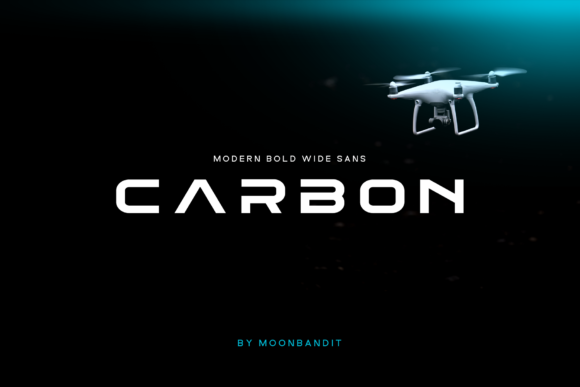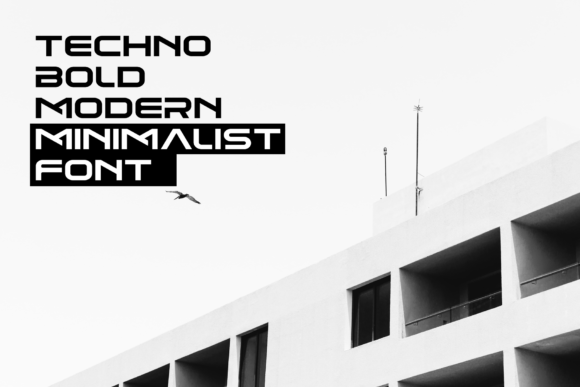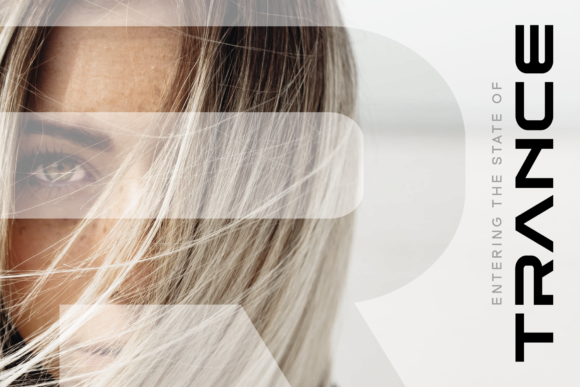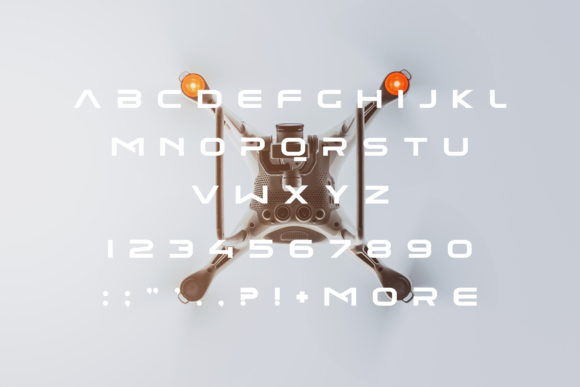
HomeSans Serif FontsCarbon Font Sans Serif Fonts Carbon Font FacebookTwitterPinterestWhatsApp Carbon Font 1 of 4 About Carbon Font Carbon is inspired by modern technology and delivers a bold and sleek aesthetic. DOWNLOAD NOW People also explored Papaya Font Blue Fire Monogram Font Lotterras Font Puzzle in Love Font Go to School Font Wacaban Font Nistar Font Rateline Font Magic Culture Font 235 0 TagsCarbonCarbon Font Previous articleMinimal FontNext articleVirtu Font LEAVE A REPLY Cancel reply Comment: Please enter your comment! Name:* Please enter your name here Email:* You have entered an incorrect email address! Please enter your email address here Website: Save my name, email, and website in this browser for the next time I comment. Personal Use Free Browie Personal Use Free Read more about this font Knox Personal Use Free Read more about this font Castina Personal Use Free Read more about this font Nottingsam Personal Use Free Read more about this font BLOG Free Fonts Risk: Why Free Fonts Can Be Dangerous for Designers Free Fonts Risk: Why Free Fonts Can Be Dangerous for Designers Using free fonts is a common practice in web and graphic design. However, the... Transform Your Website: Elevate Your Typography with 7 Best Web Font Generators Elegant Wedding Invitation Fonts – Handwritten & Script Fonts Free vs Paid Fonts: Why Investing in Premium Fonts Is Worth It